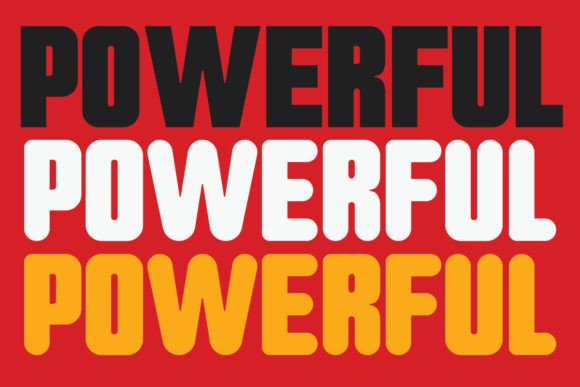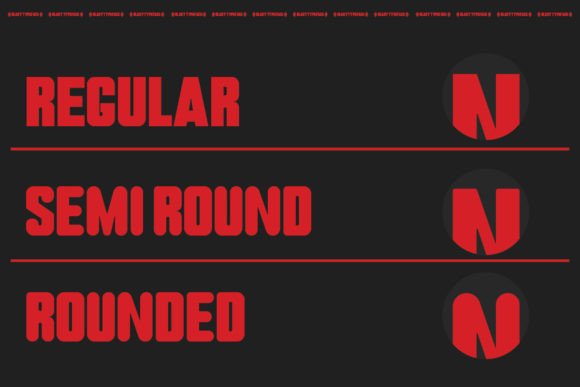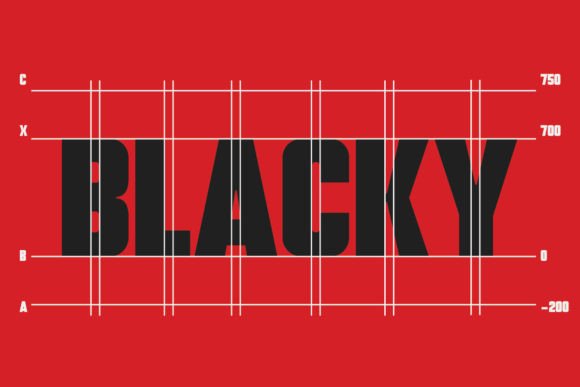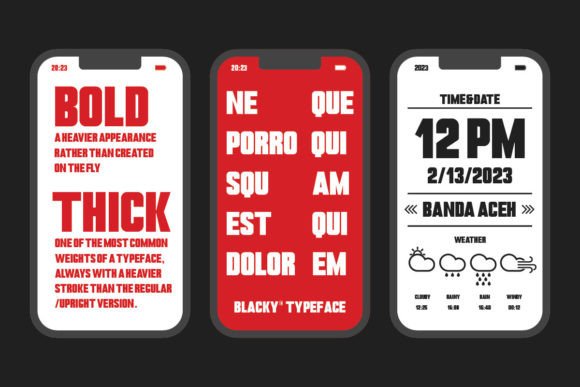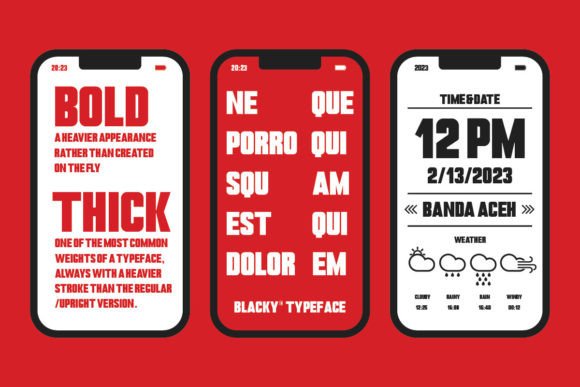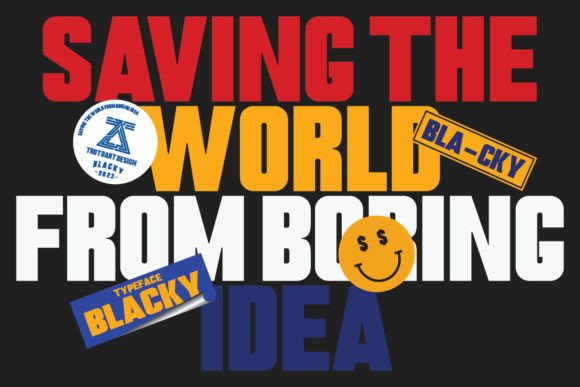
The Perfect Companion for Your Next Creative Project
Remember that moment when you were brainstorming a new design concept, and everything seemed to fall into place? The perfect font, the ideal color palette, the subtle yet striking details – it all came together to create something truly breathtaking. And that’s where the Blacky Font comes in – a powerful and elegant display typeface that’s sure to elevate your creations to new heights.
Whether you’re working on a logo, a branding project, or a beautiful typography piece, the Blacky Font is an incredible asset to have in your library. Its versatility and sophistication make it the perfect companion for any design project, allowing you to create stunning visual effects and convey your message with confidence.
With the Blacky Font, you’ll be able to take your designs to the next level and leave a lasting impression on your audience. So why settle for ordinary when you can have extraordinary? Add the Blacky Font to your collection today and unlock a world of creative possibilities.
Blacky Font Key Features
- Font Family: Blacky is a sans-serif font family.
- Font Size: Blacky comes in multiple font sizes, ranging from 8pt to 72pt.
- Resolution: Supports resolutions up to 300 DPI.
- Unique Characteristics: Blacky features a modern and minimalist design, making it ideal for digital interfaces, signage, and advertising materials.
- Character Set: Includes a comprehensive set of characters, including Latin, Cyrillic, and Greek alphabets, as well as punctuation and symbols.
Designer Review: Blacky Font
Blacky Font caught my eye with its edgy and bold style, making it a great addition to any modern design project. ✨ The font’s high contrast and geometric shapes create a striking visual effect that can easily grab attention. ✨
- Blacky Font is incredibly versatile and can be used for various purposes, from logos and branding to digital interfaces and advertisements.
- The font’s clean lines and geometric shapes make it easy to read, even in smaller font sizes.
- The font’s bold and edgy style makes it perfect for industries like tech, gaming, and fashion.
However, there are a few limitations to consider: ⚠️ The font’s bold style can sometimes make it difficult to read in certain contexts, such as in small text or in environments with low light. ⚠️ Additionally, the font’s geometric shapes can make it feel a bit cold or impersonal, which may not be suitable for all design projects.
Overall, I would say that Blacky Font is a great addition to any modern design project, but it’s essential to use it thoughtfully and consider the context in which it will be used. With a bit of creativity and restraint, Blacky Font can be a real showstopper.
Blacky Font is a bold and modern sans-serif font, making it perfect for headings and titles. To get the most out of it, use it sparingly and in combination with other fonts to create visual interest.
Montserrat is a sans-serif font that is great for body text, headings, and titles. It is highly legible and versatile, making it suitable for a wide range of design projects. Montserrat is a popular alternative to Blacky Font due to its modern and sleek aesthetic.
Comparison: Montserrat is more modern and sleek compared to Blacky Font’s bold and vintage feel. Montserrat is ideal for digital design projects, while Blacky Font is better suited for print designs.
Playfair Display is an elegant and luxurious serif font that is perfect for titles, headings, and other high-impact text. It features intricate details and a classic feel that is reminiscent of traditional typography. Playfair Display is an alternative to Blacky Font for designers who want to add a touch of sophistication to their projects.
Comparison: Playfair Display is more ornate and traditional compared to Blacky Font’s bold and edgy feel. Playfair Display is ideal for high-end design projects, while Blacky Font is better suited for bold and eye-catching designs.
Great Vibes is a modern and elegant script font that is perfect for titles, headings, and other high-impact text. It features a flowing and organic feel that is reminiscent of handwritten text. Great Vibes is an alternative to Blacky Font for designers who want to add a touch of personality to their projects.